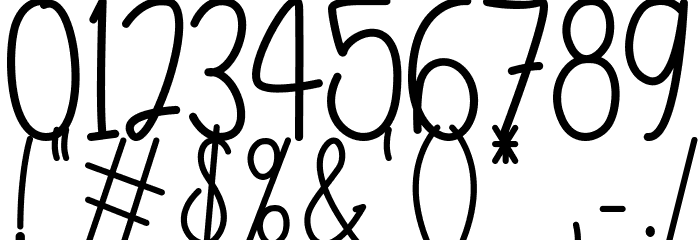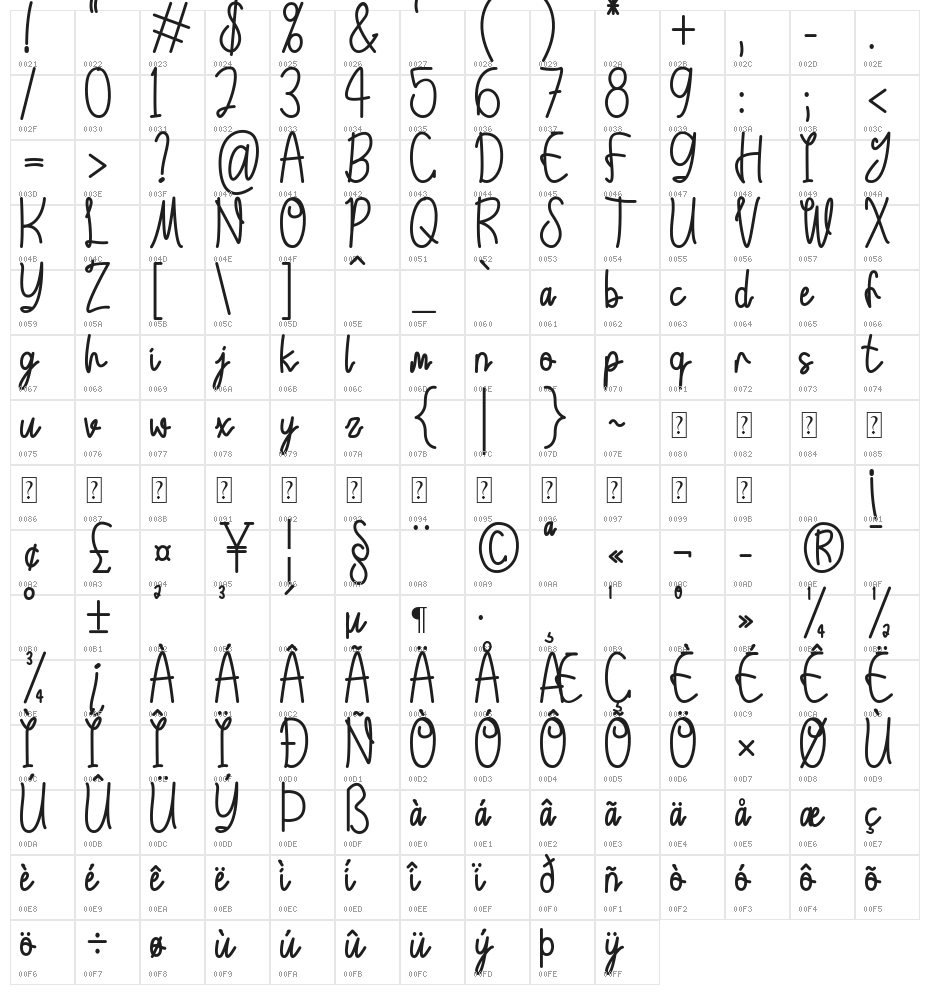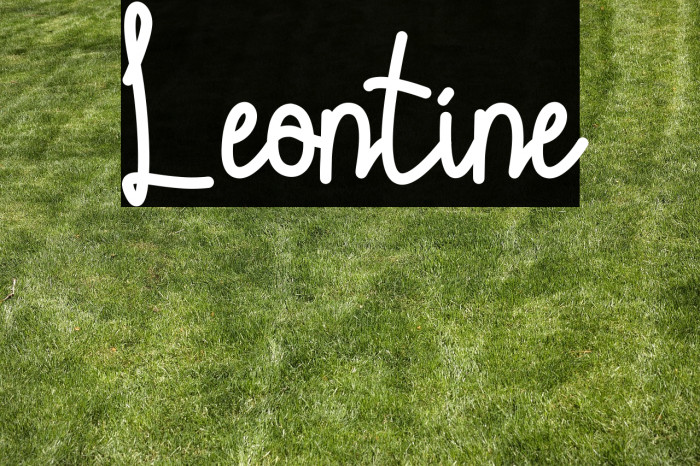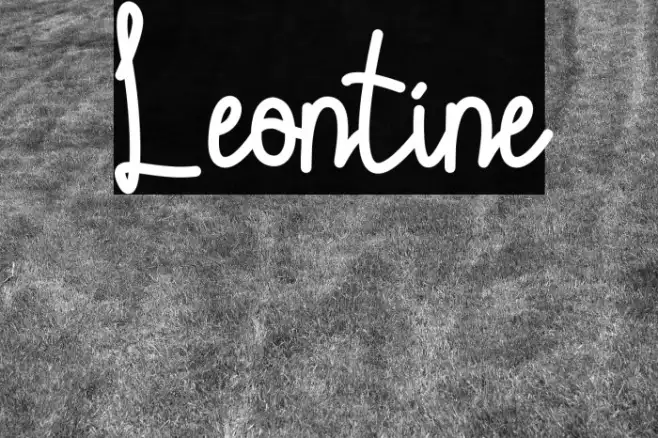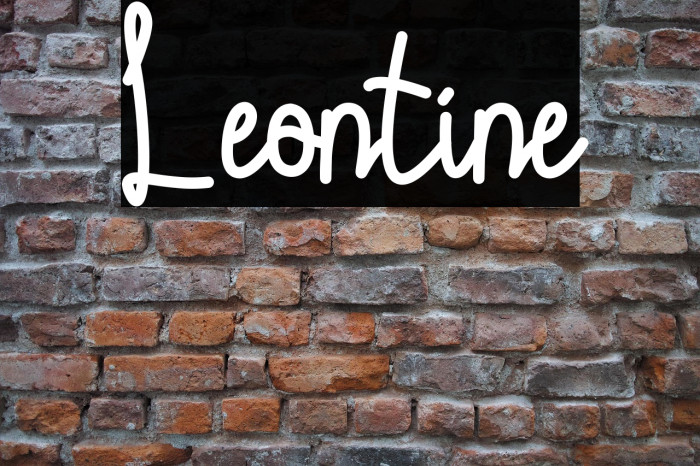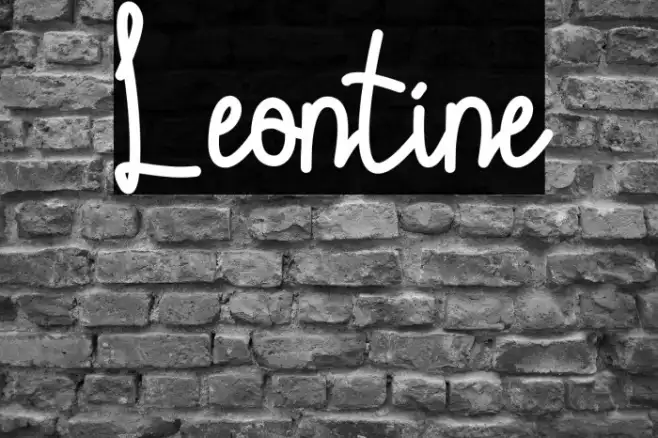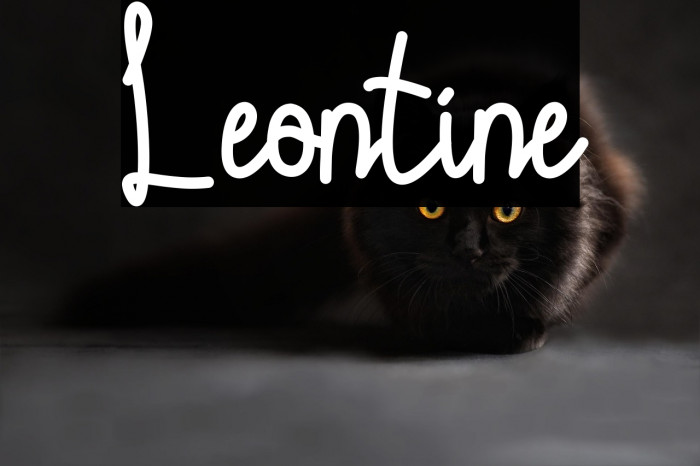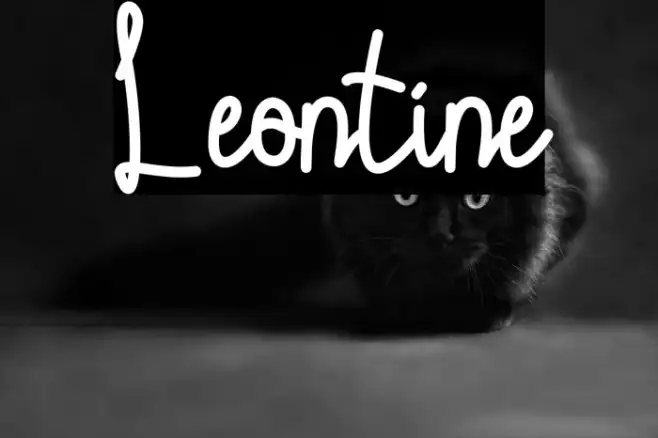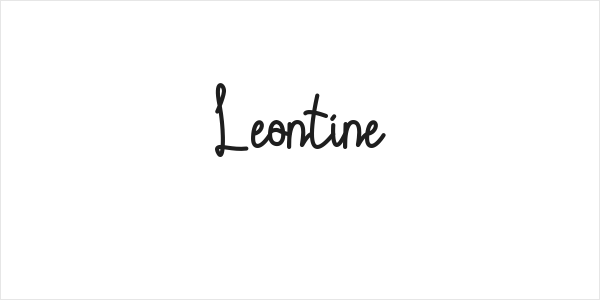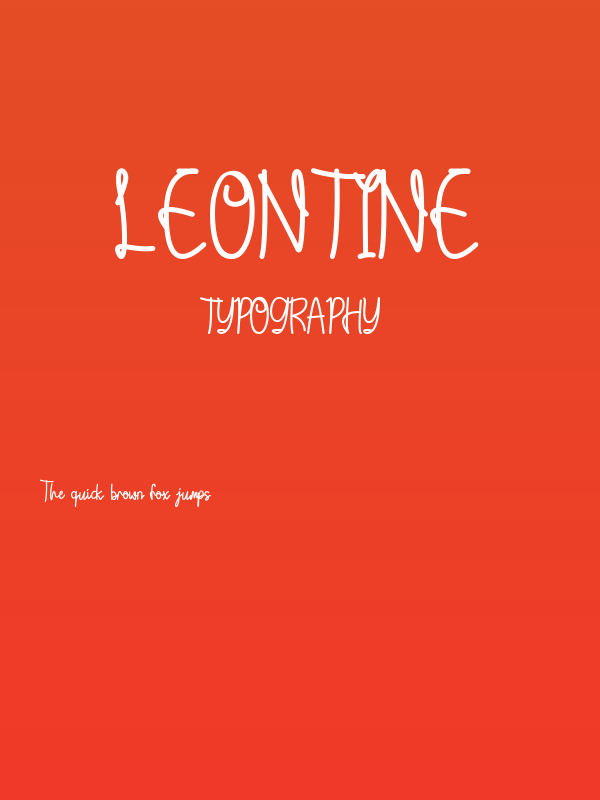
Leontine Font
Leontine Description
This font features a playful and whimsical handwritten style, characterized by its fluid and dynamic strokes. The uppercase letters are tall and slender, with a slight slant that adds to the casual feel. The lowercase letters are more rounded and connected, creating a sense of continuity and flow. Numbers and special characters maintain the same lively and informal aesthetic, making the font versatile for various creative applications. The overall design is approachable and friendly, ideal for projects that require a personal touch.
Overall StyleCasual, Playful
Use CaseHeadlines, Logos, Invitations
Proposed ProjectsIdeal for greeting cards, invitations, children's books, and playful branding projects.